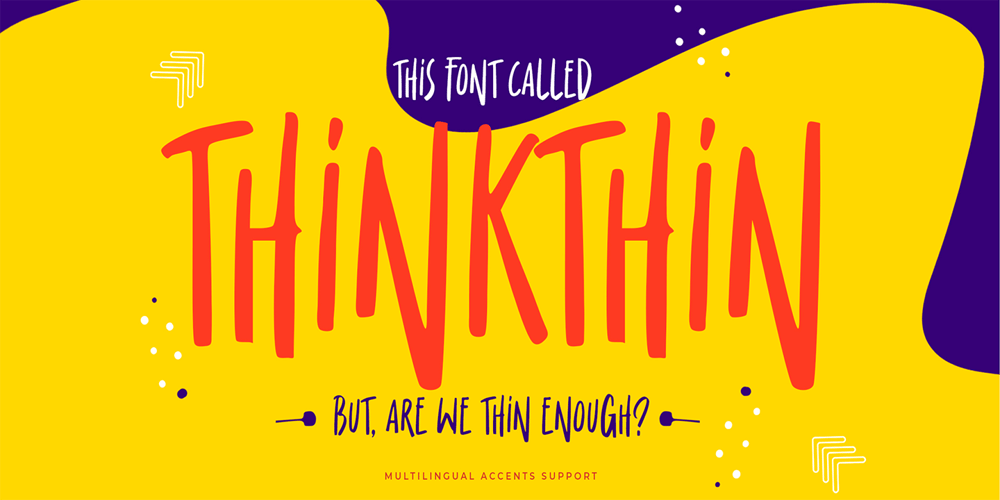
Thinkthin Font Family was designed by Abdul Malik Wisnu, Anang Fibriyanto and published by Gassstype. Thinkthin contains 1 styles and family package options. Hello Everyone, introduce our new product Font Thinkthin This Is Display Thin Font.This is a Textured Natural Style and classy style with a clear style and dramatic movement.That is has charming, authentic and relaxed characteristic more natural look to your text. You can activate 2 Ligatures and 42 Alternate glyphs OpenType panel.